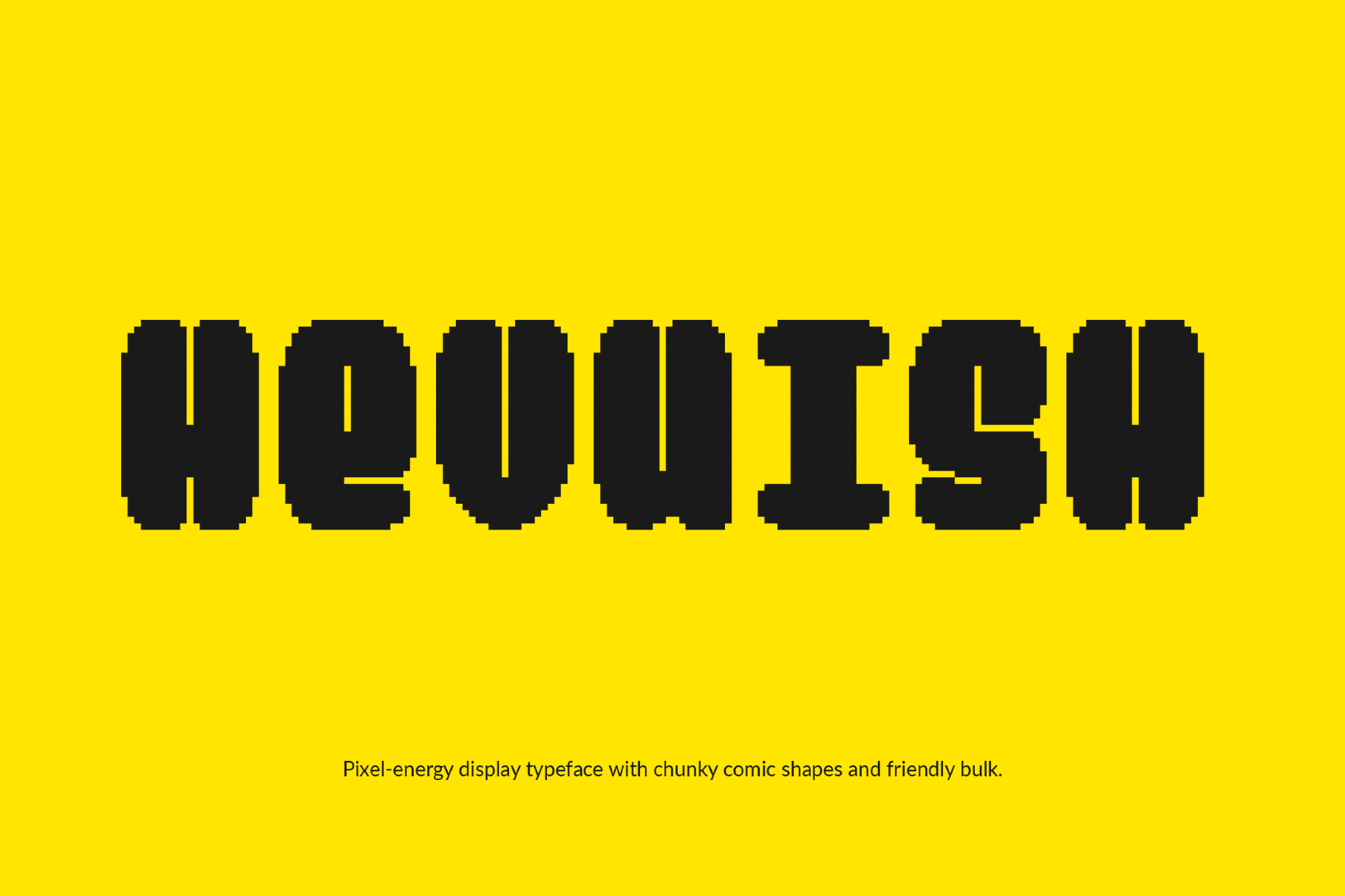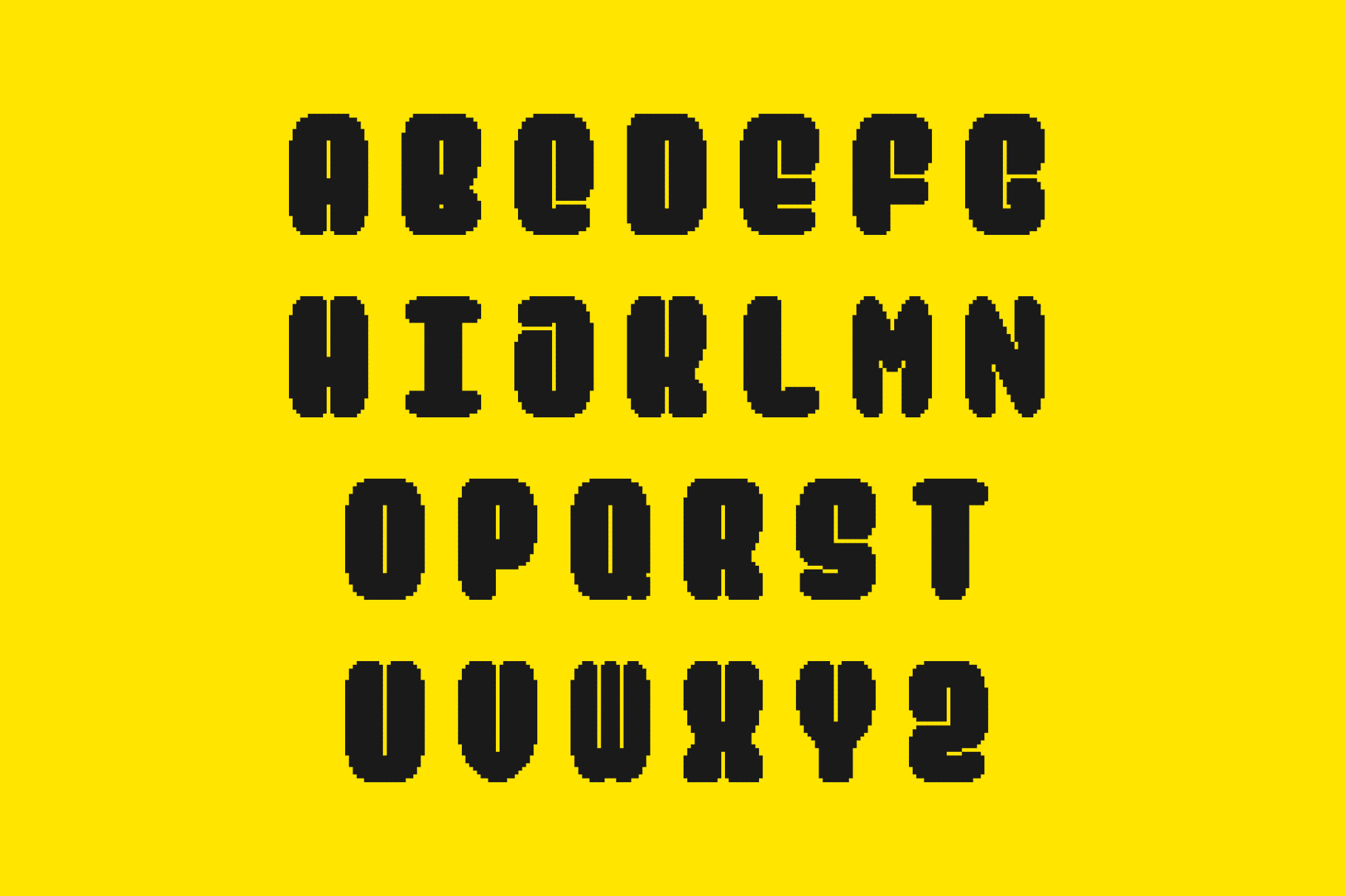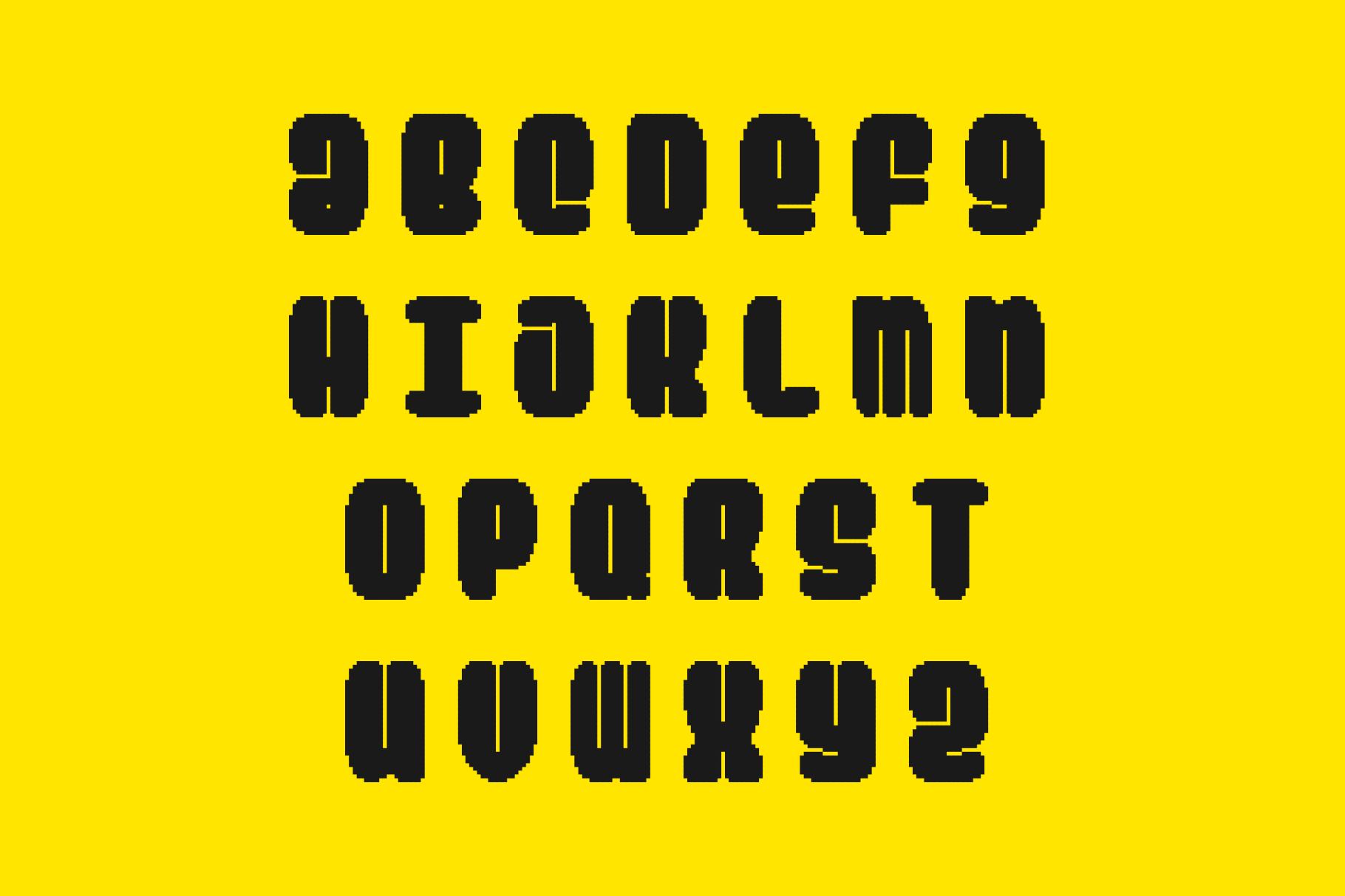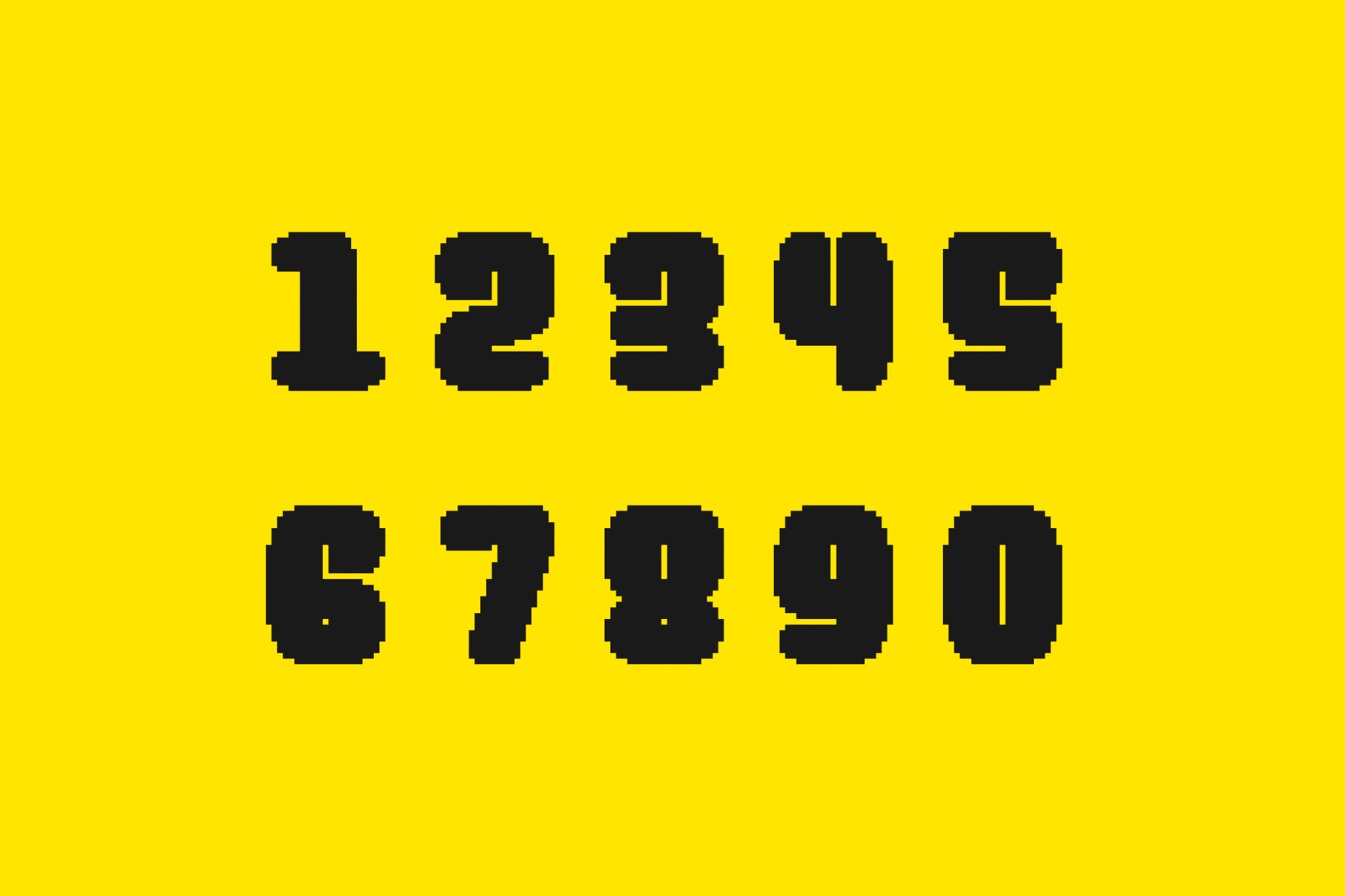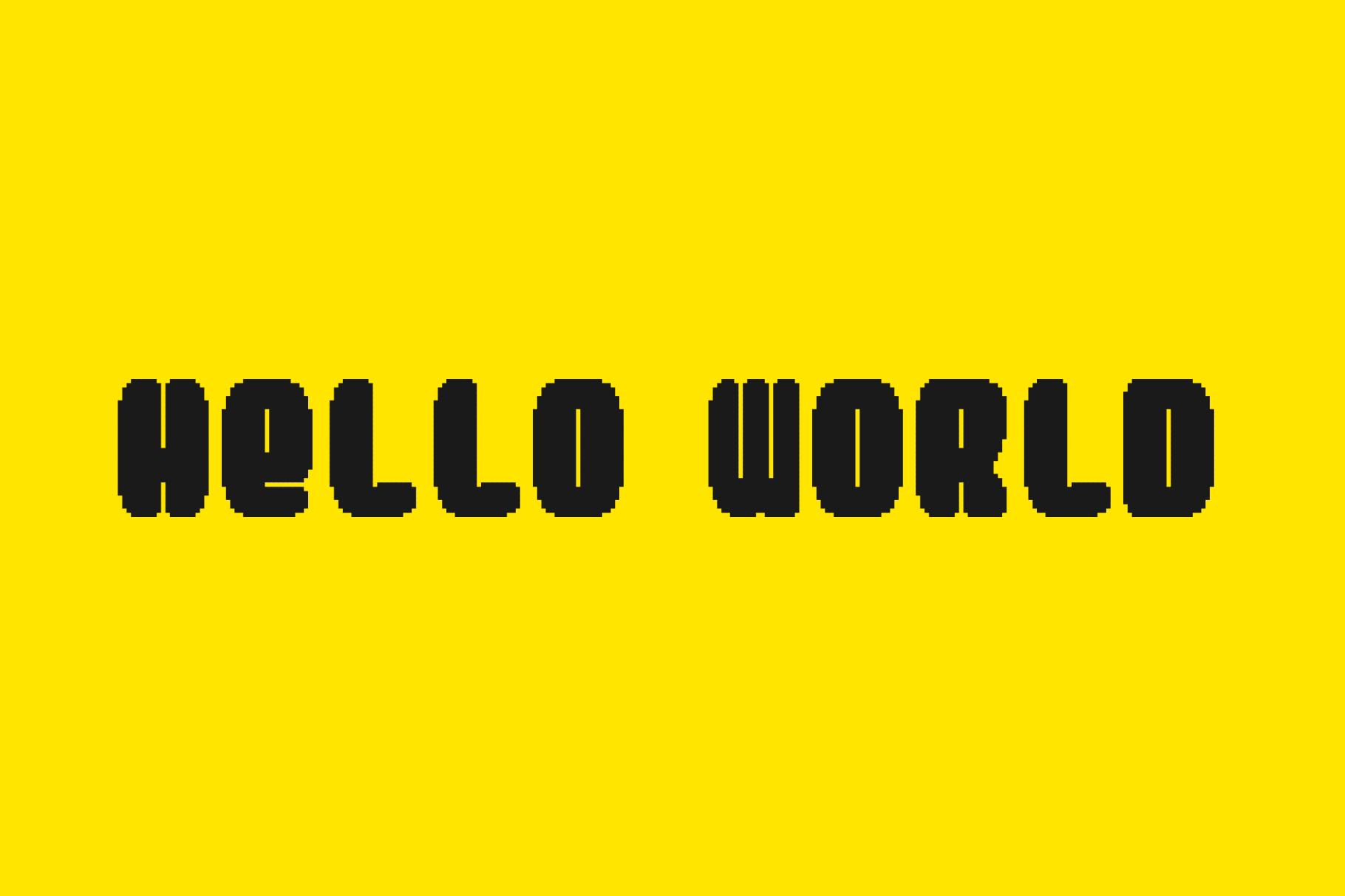
Hevuish - Retro Game Font Font
hevuish
Hevuish is a heavy pixel font with the oversized charm of 8-bit arcade screens, retro game boxes and cartoon title cards lit by the glow of early console culture. The type brings a playful jolt to game logos, poster headlines, comic covers, kids’ packaging, stream graphics, sticker designs, and social posts.